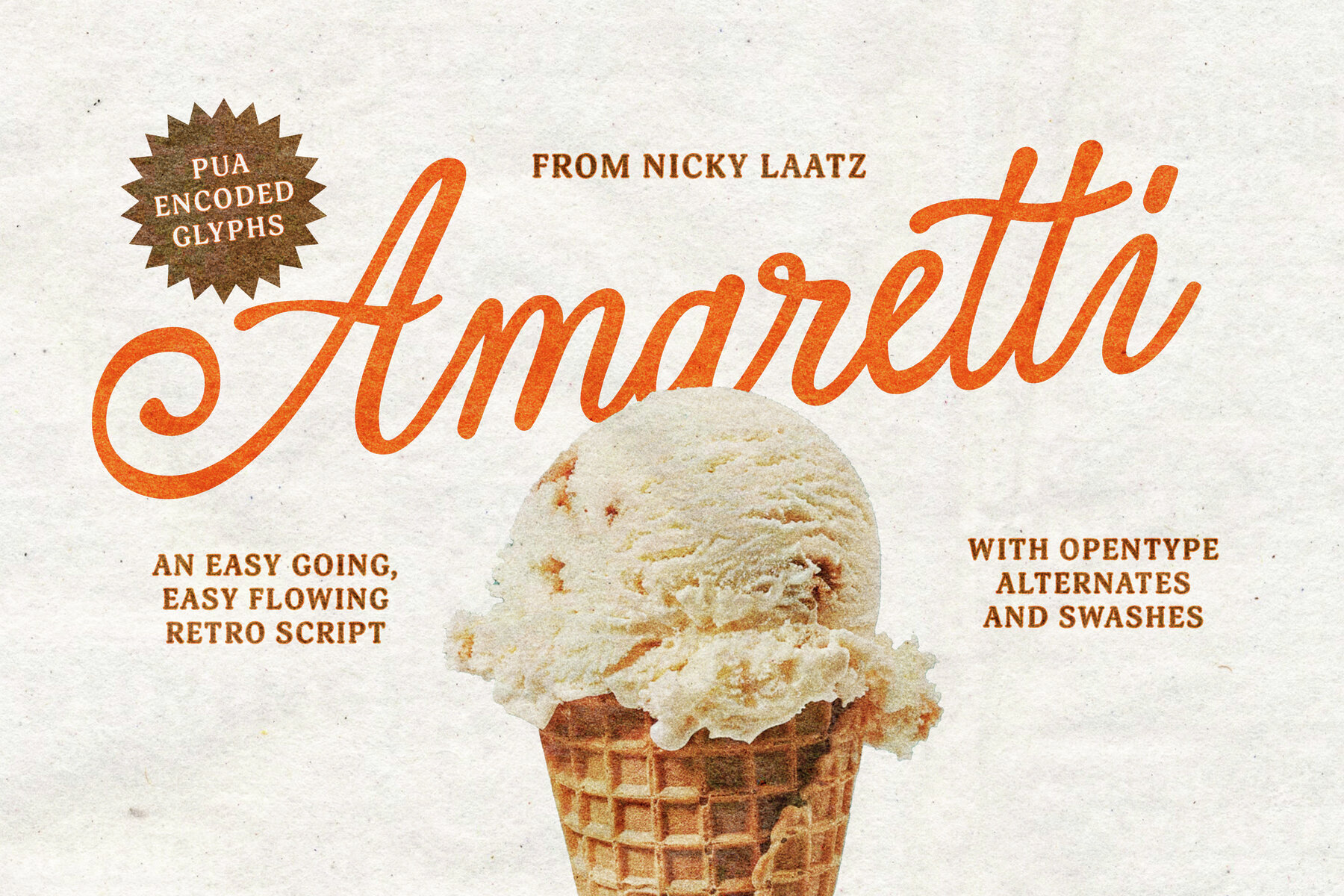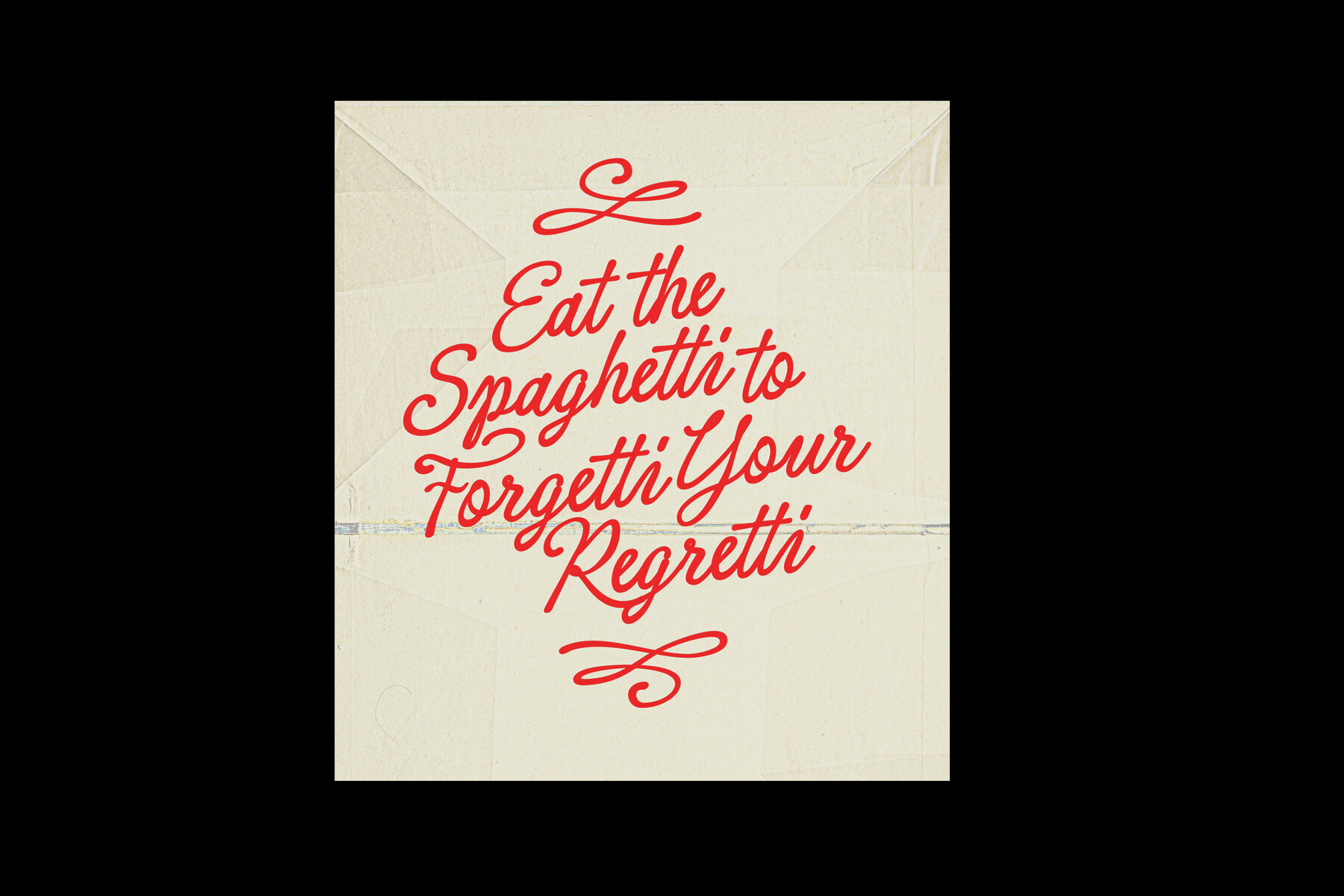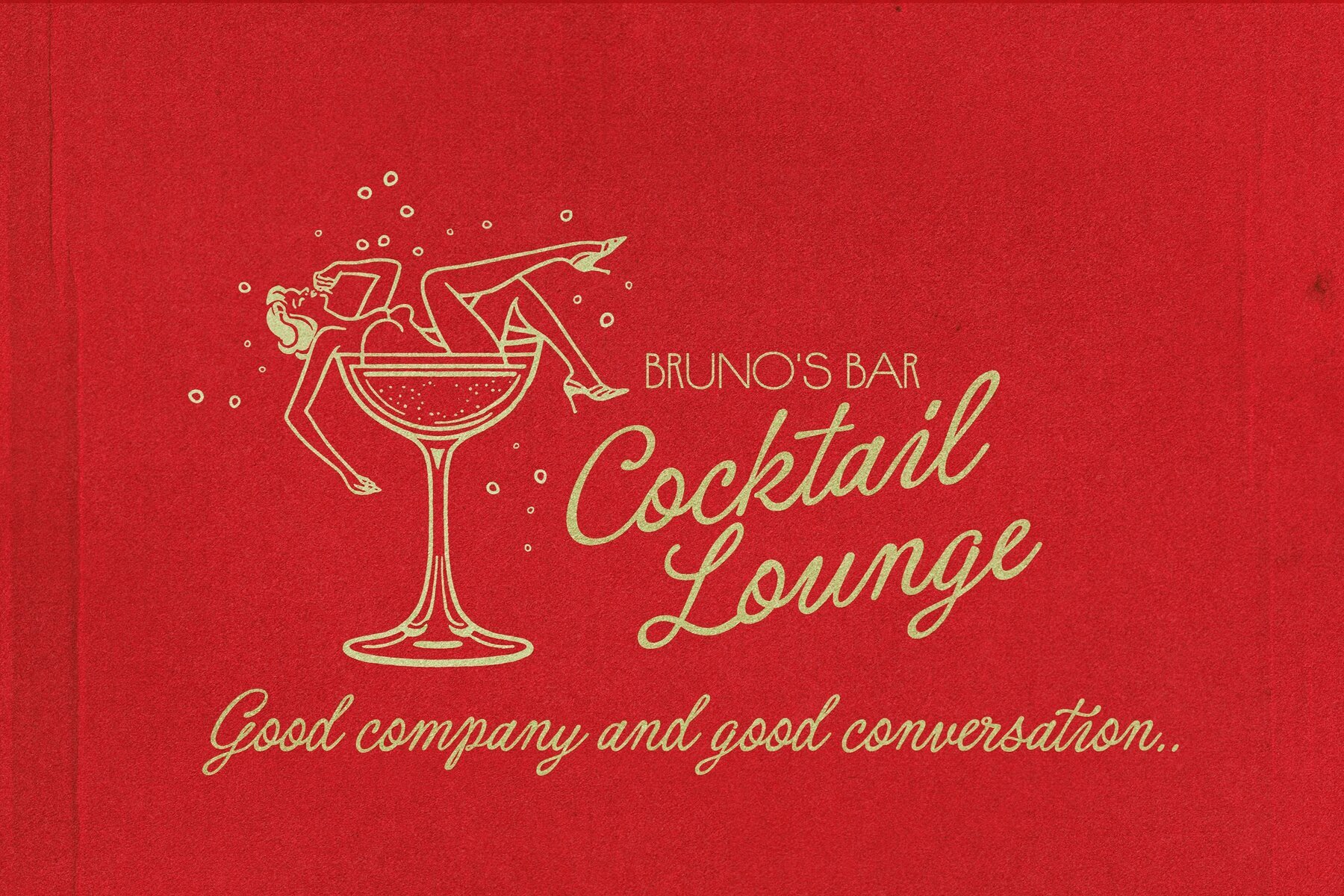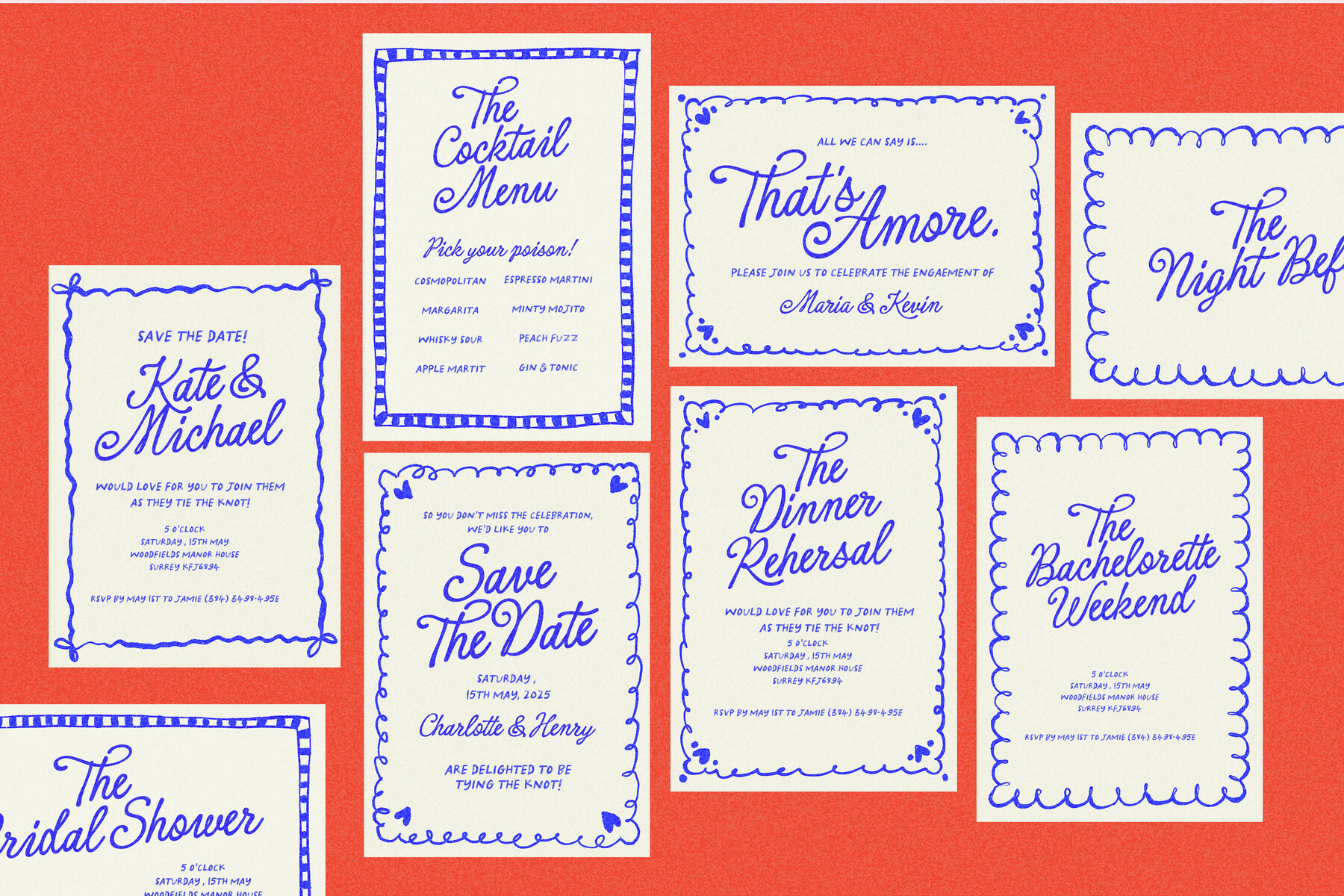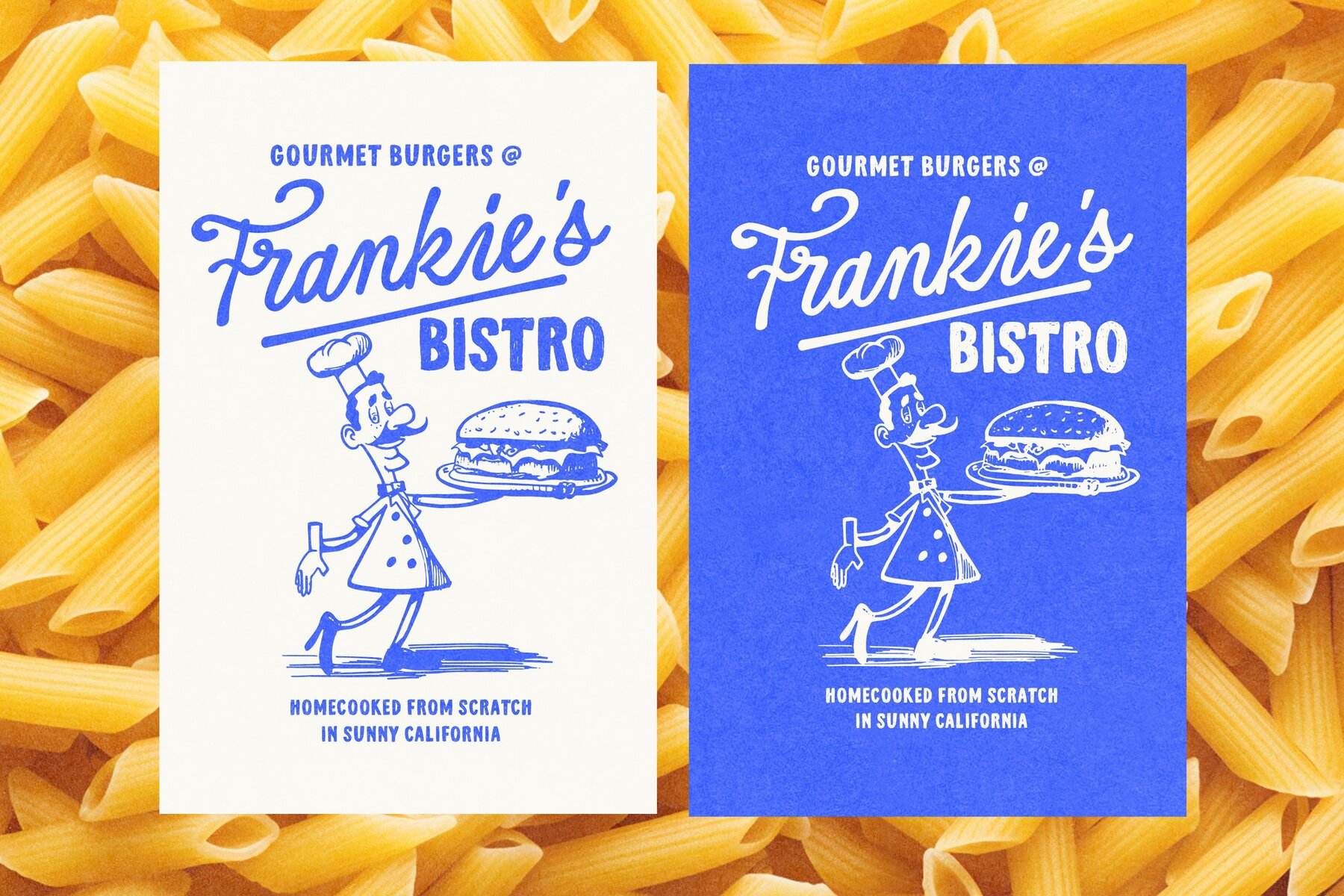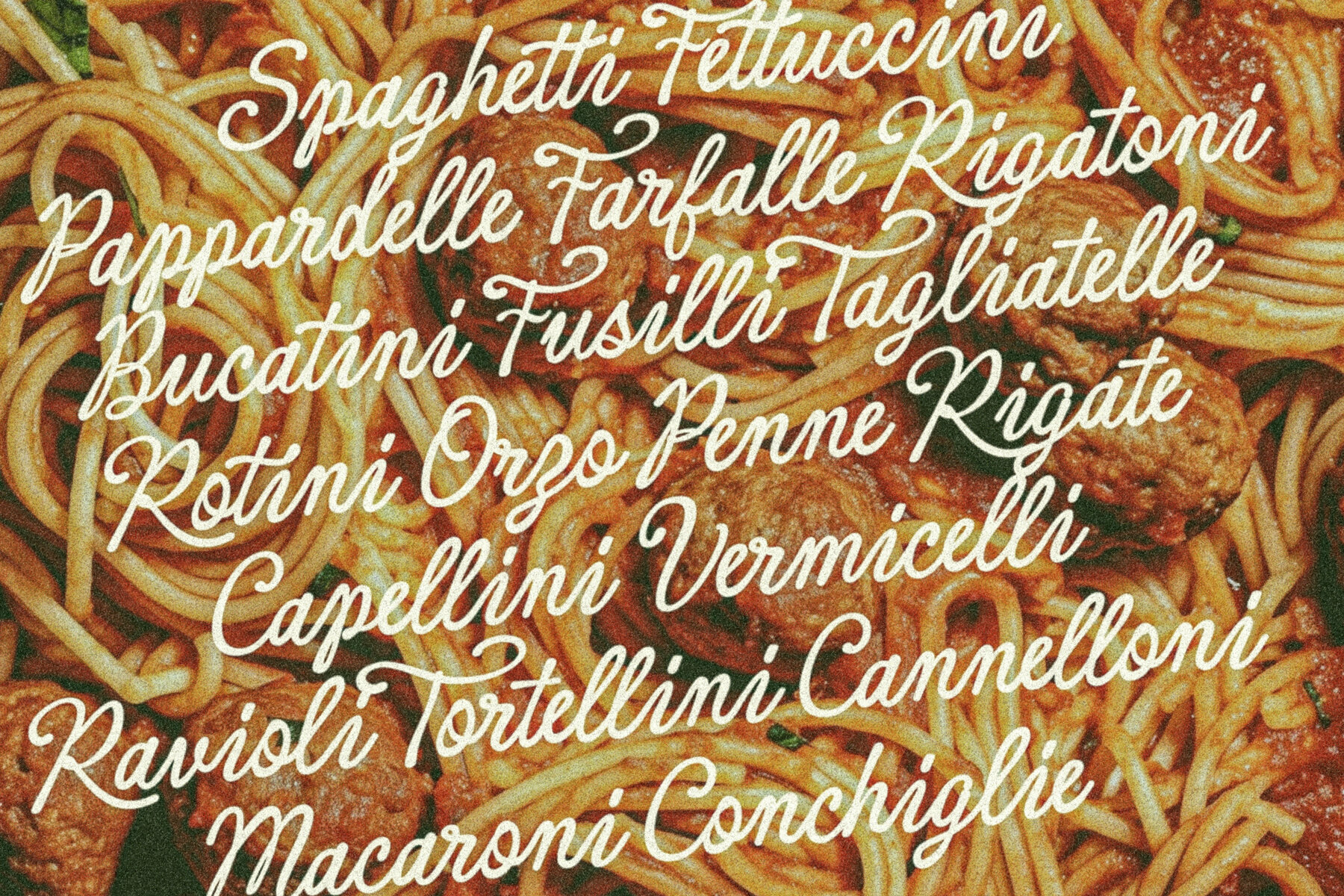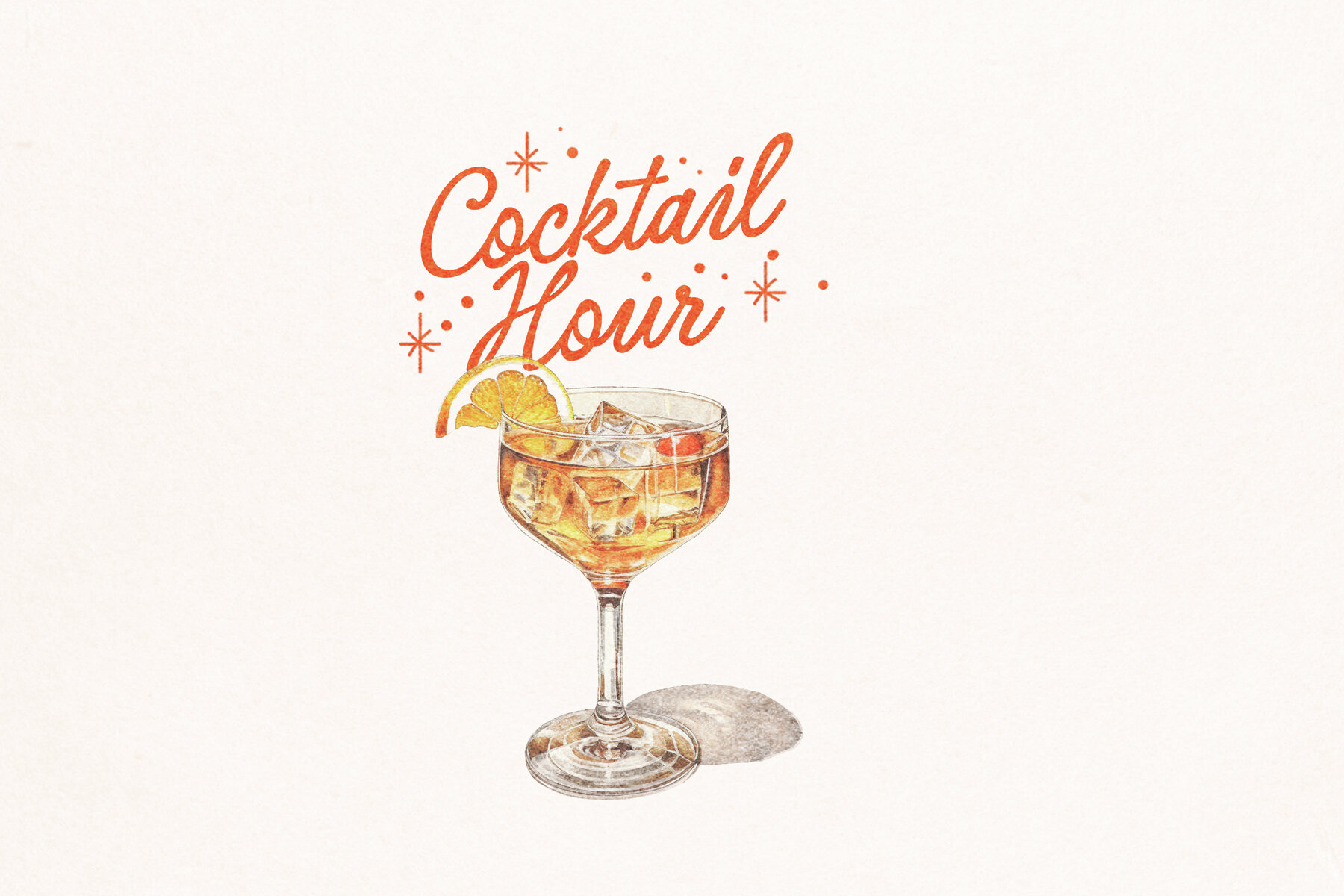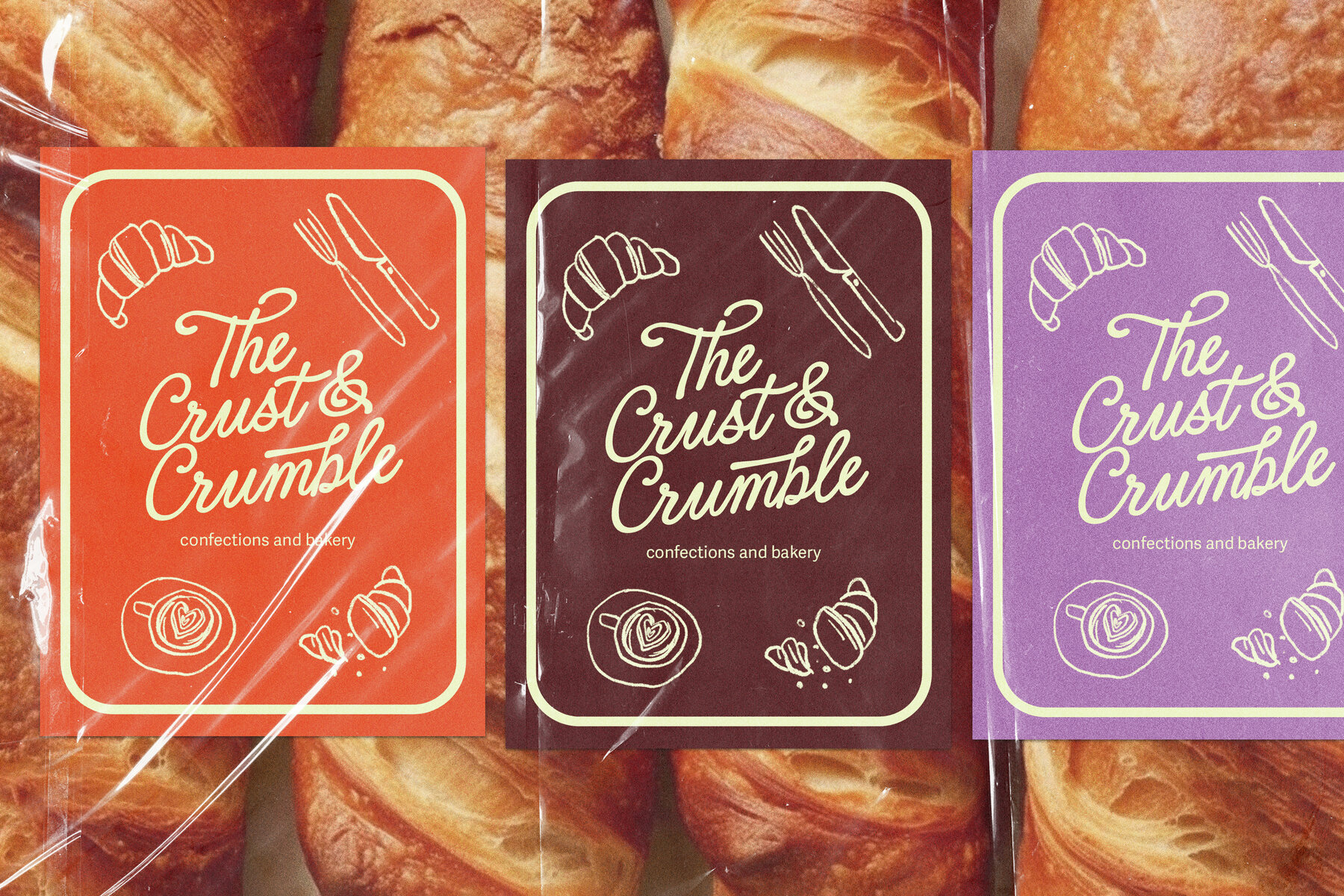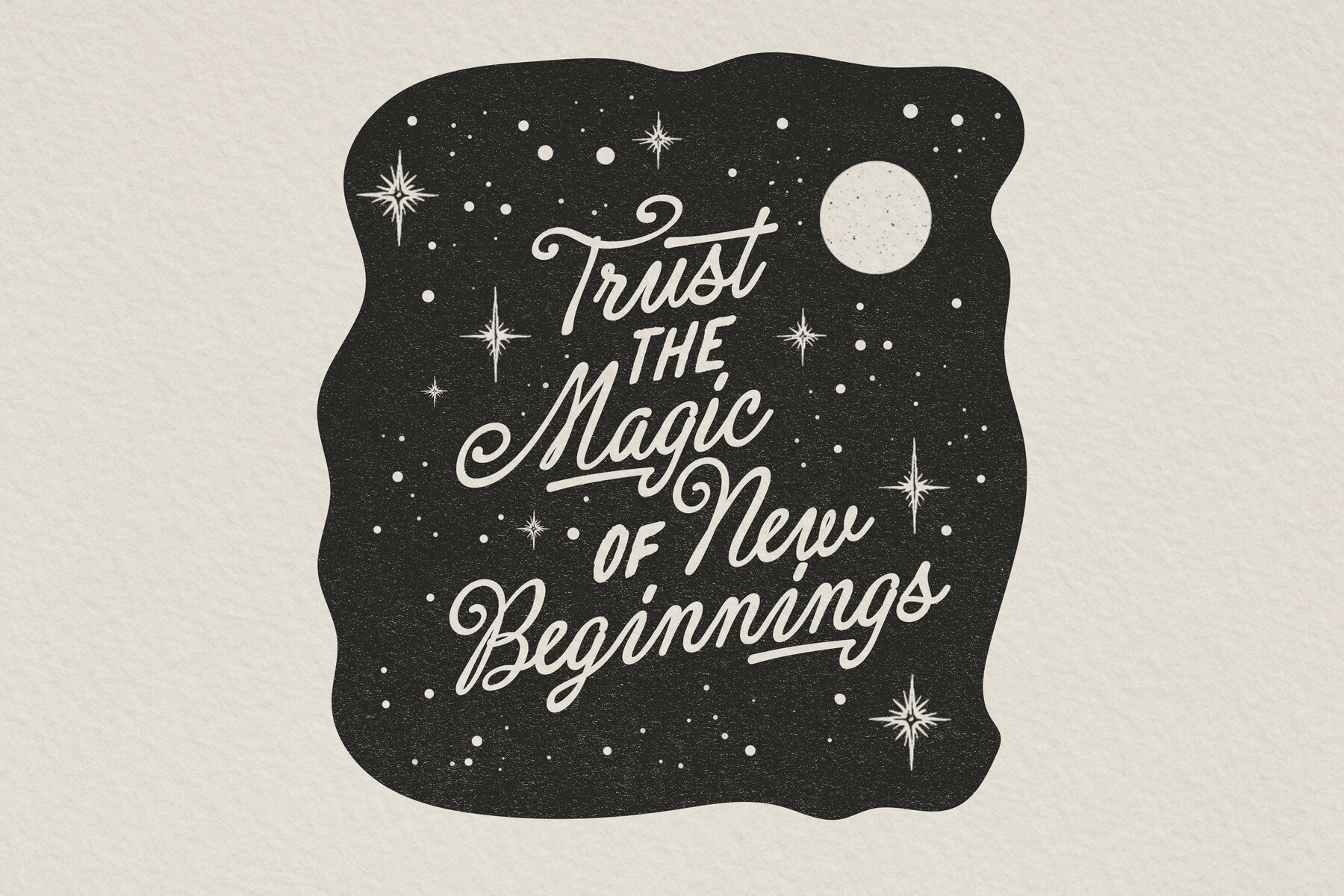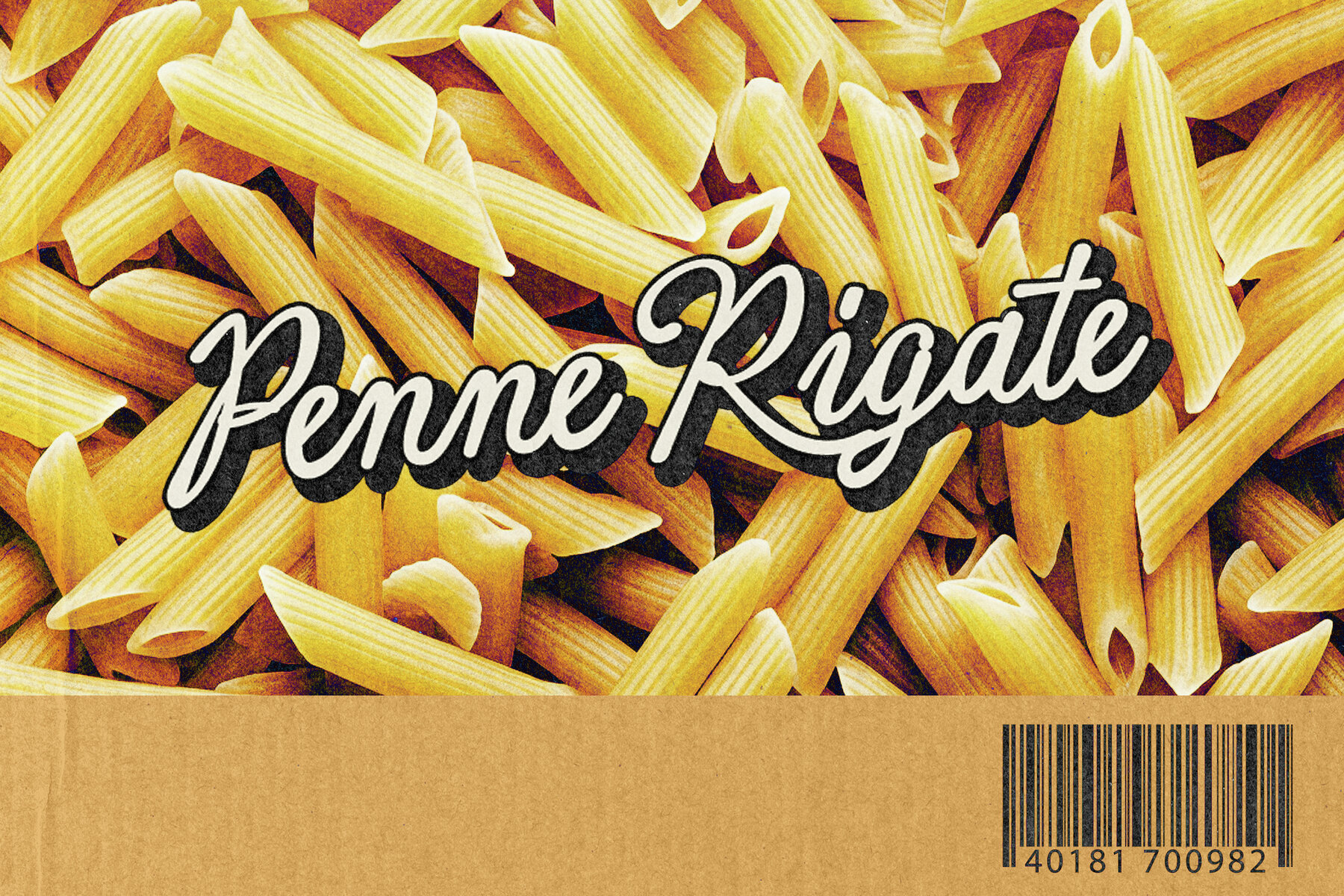
Amaretti Script Font
Amaretti Script brings a touch of 1950s charm to your digital designs, capturing the playful and nostalgic essence of vintage hand-lettered signage. This smooth calligraphic script is perfect for adding a sense of warmth and fondness to any project. With its sumptuous swirls, sweeping curves, and elegant flourishes, the typeface conveys a lively and upbeat tone. The typeface is PUA encoded, making it accessible for Canva users.
Amaretti Script features three versatile weights, each with an oblique version, allowing for flexible design options. Enhance your text with its whimsical OpenType alternates, ligatures, and swashes, offering expressive possibilities for creative flair. While providing English language support, it also includes select diacritic marks.